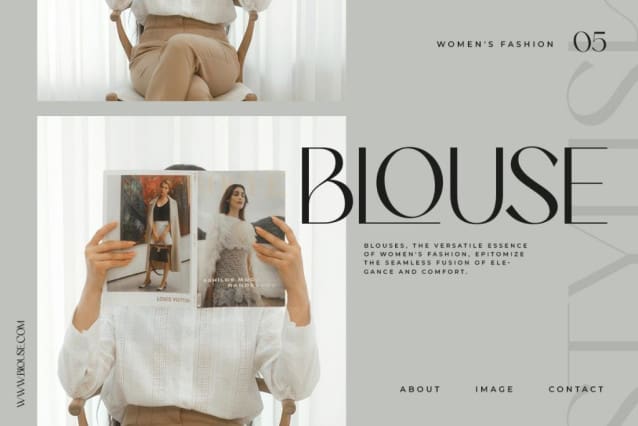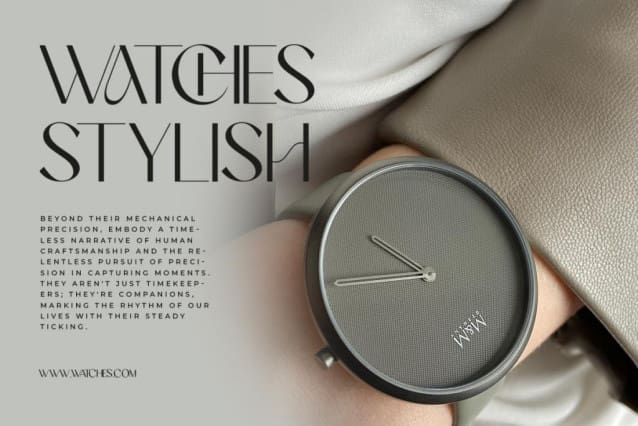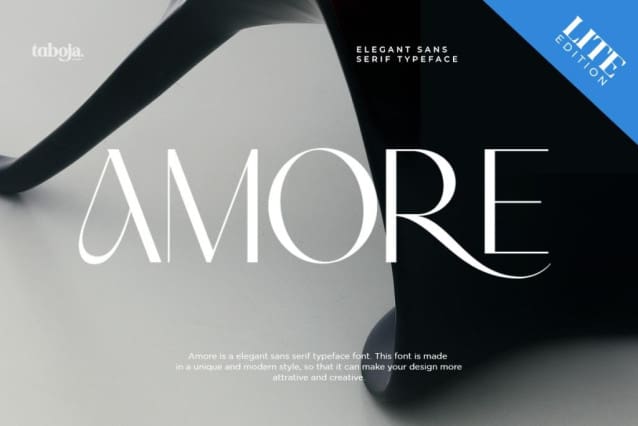
Amore Sans Font
Amore Sans Font, is a sans serif  stunning when combined or separately. This sans serif font style is legible and stunningly designed.